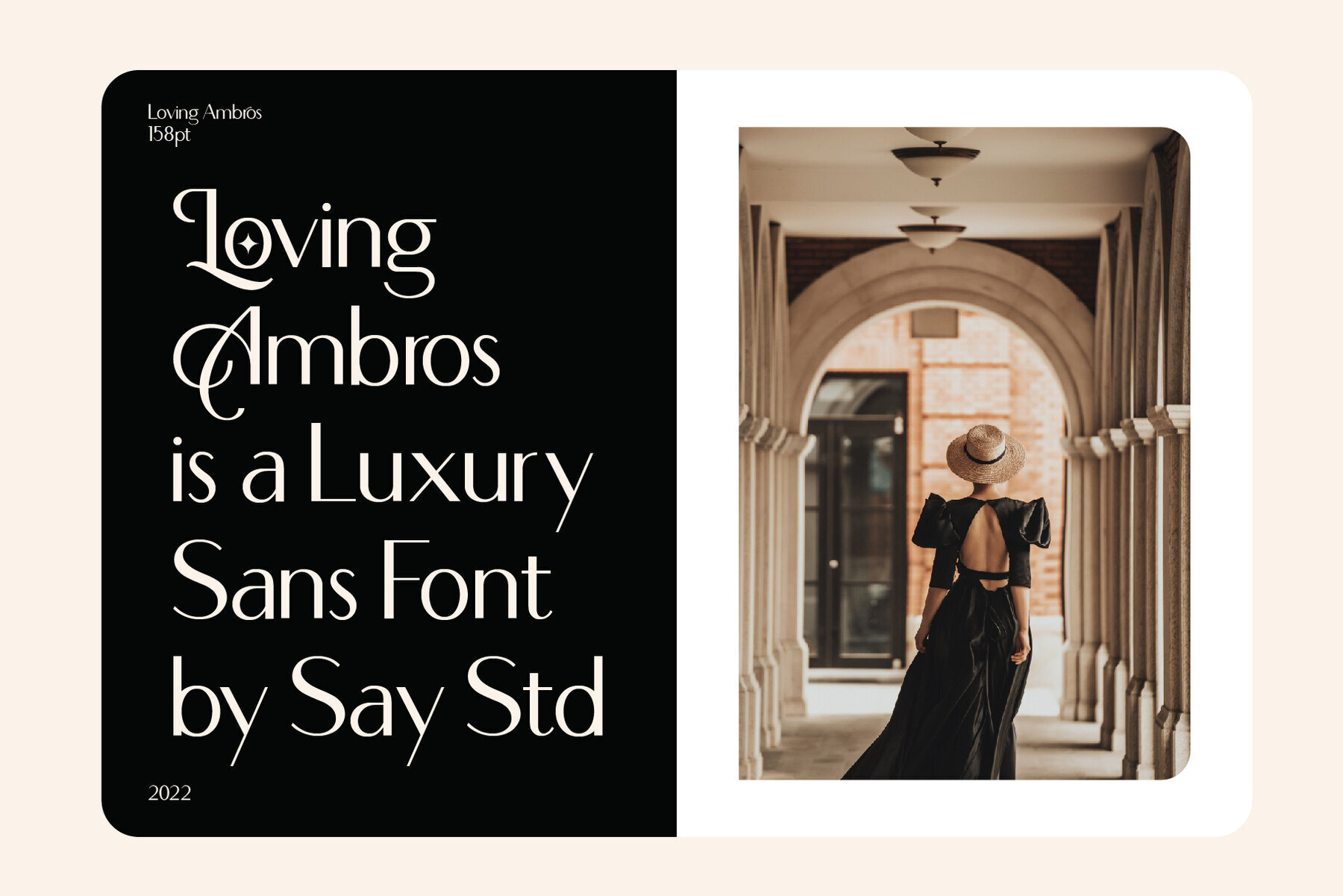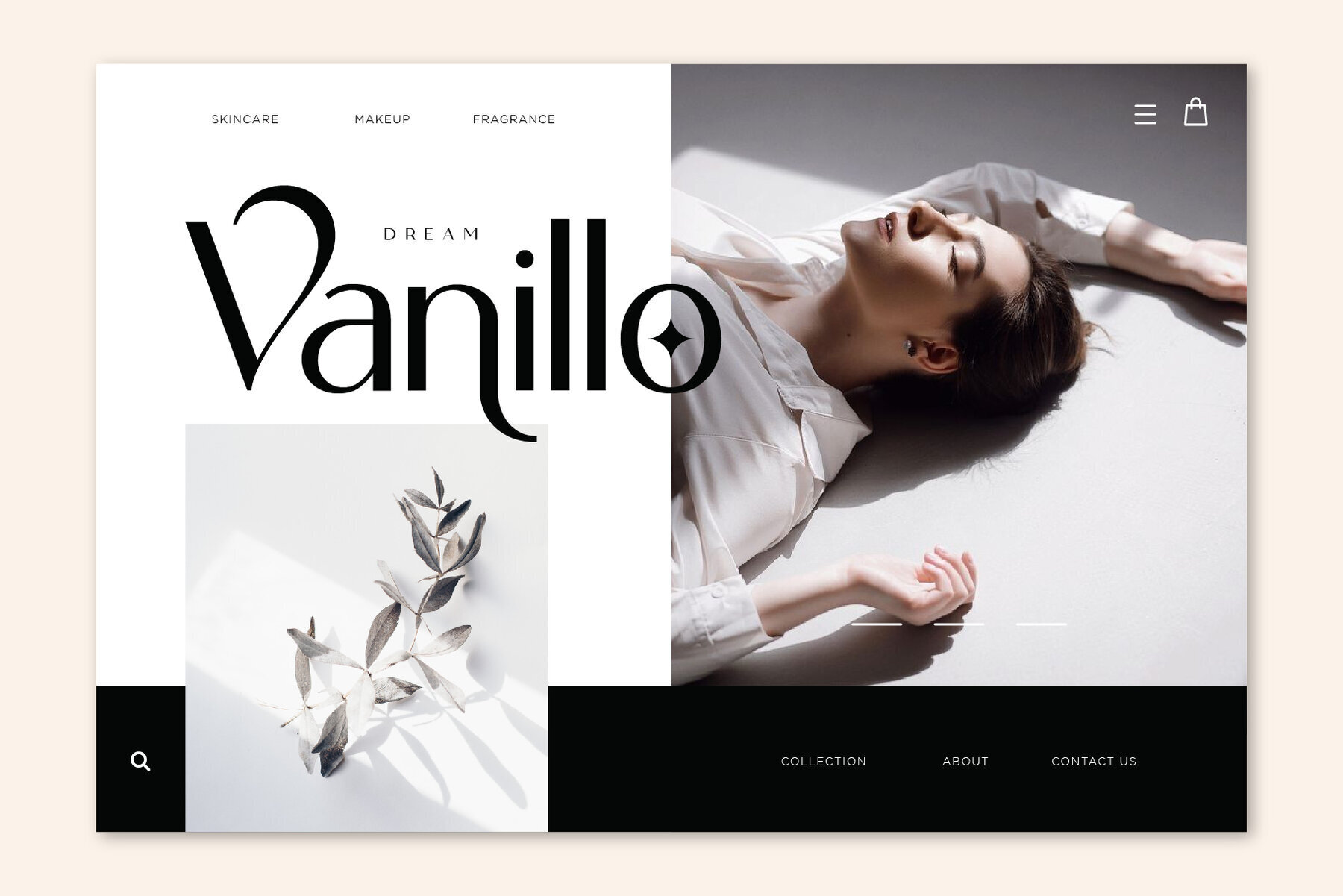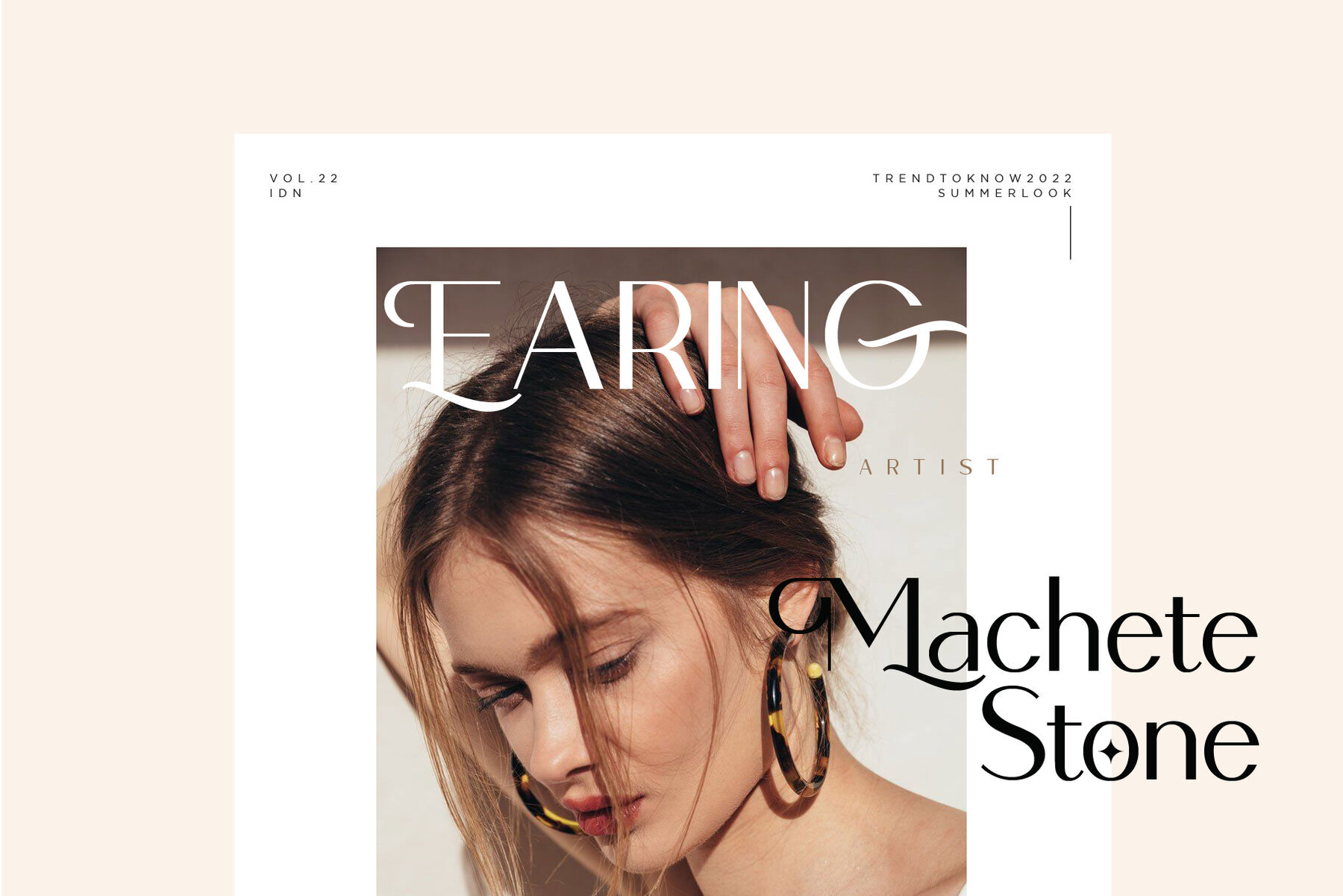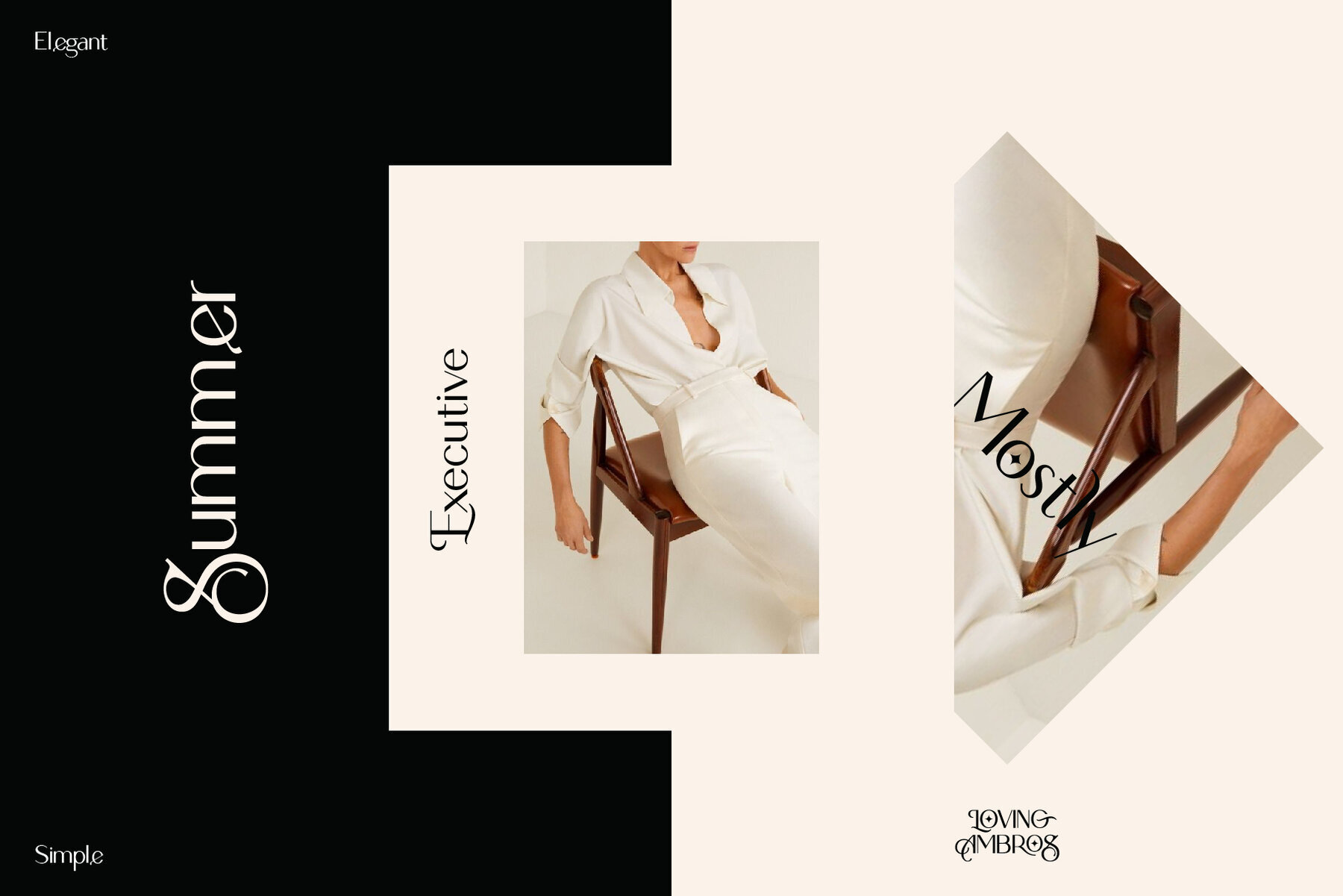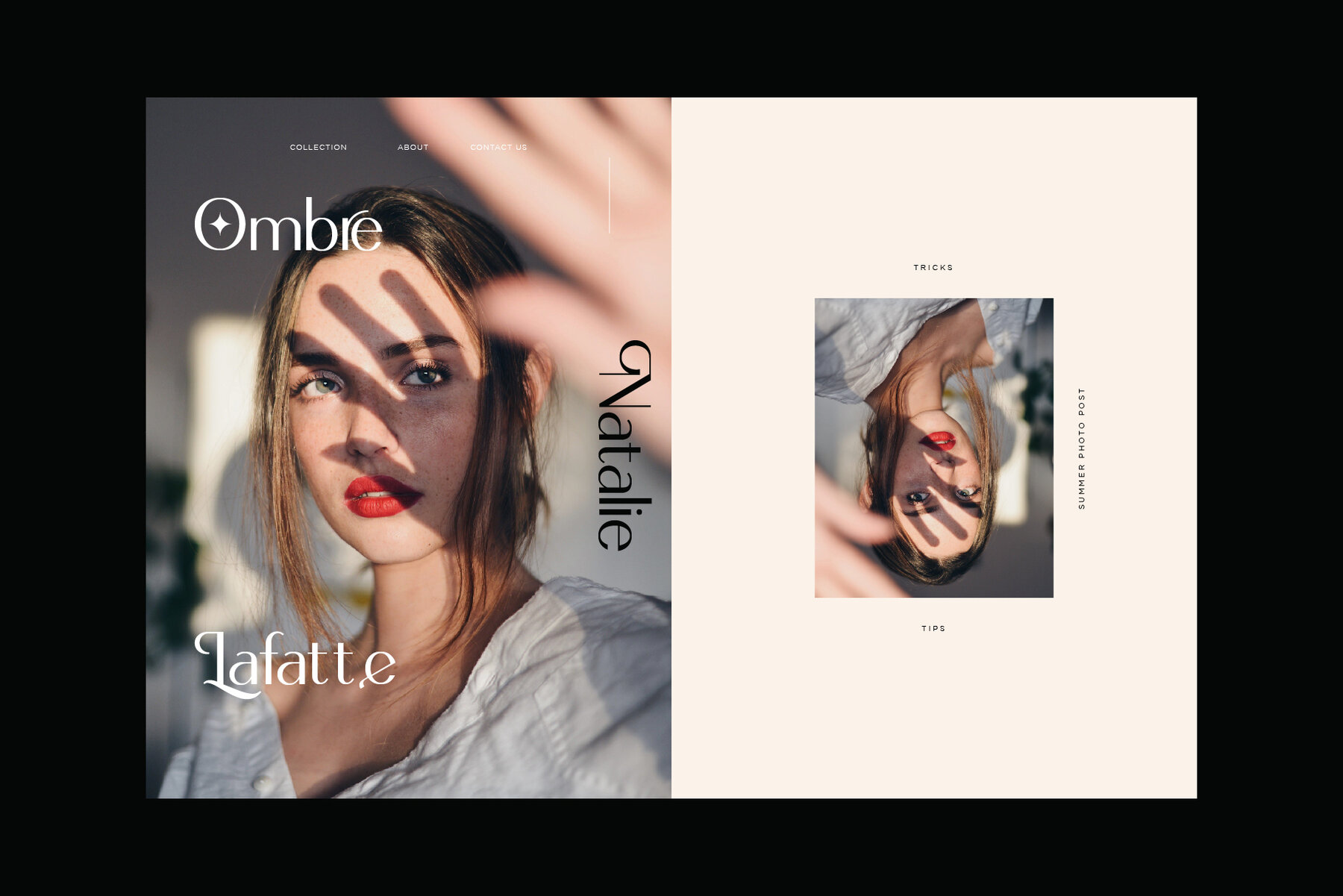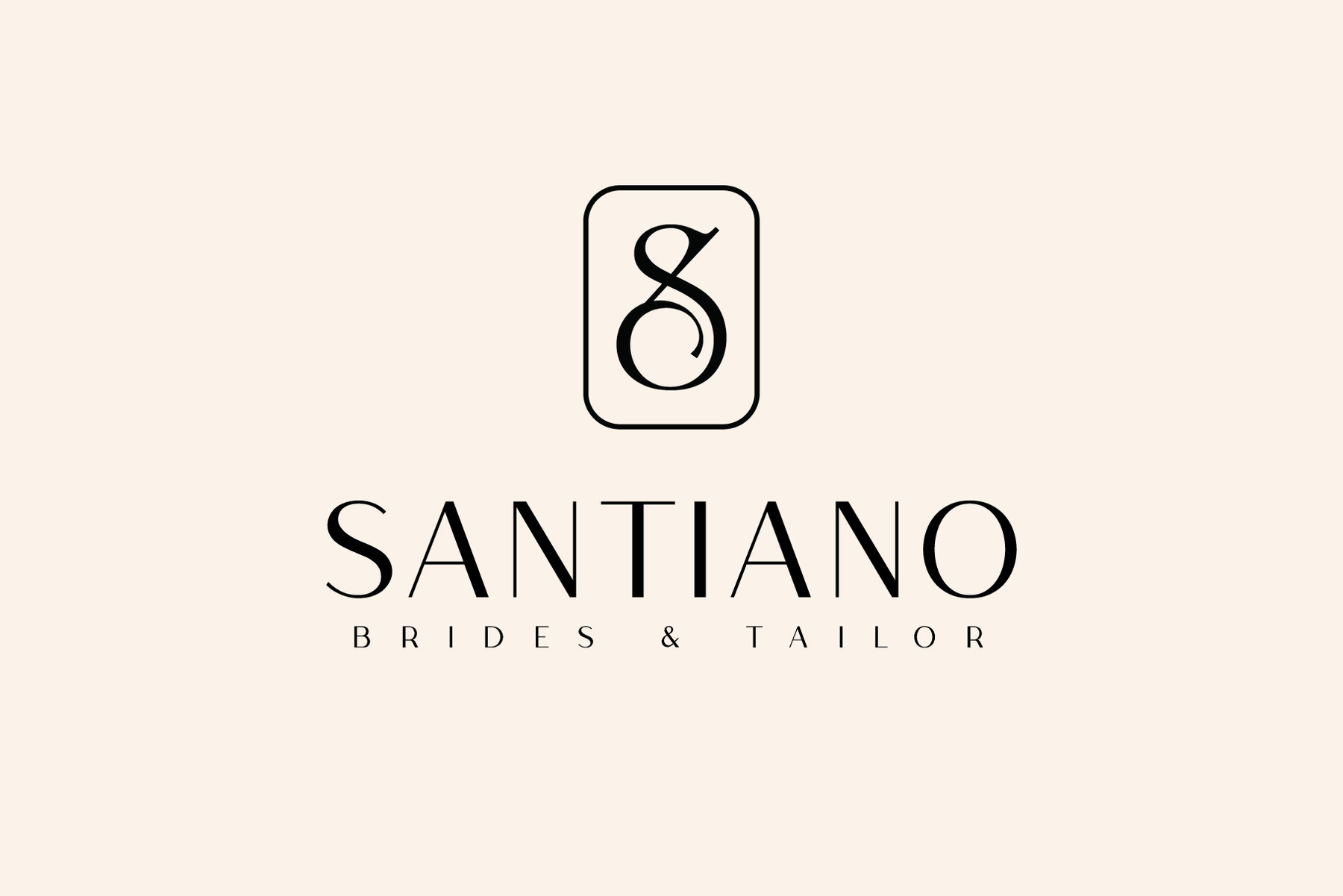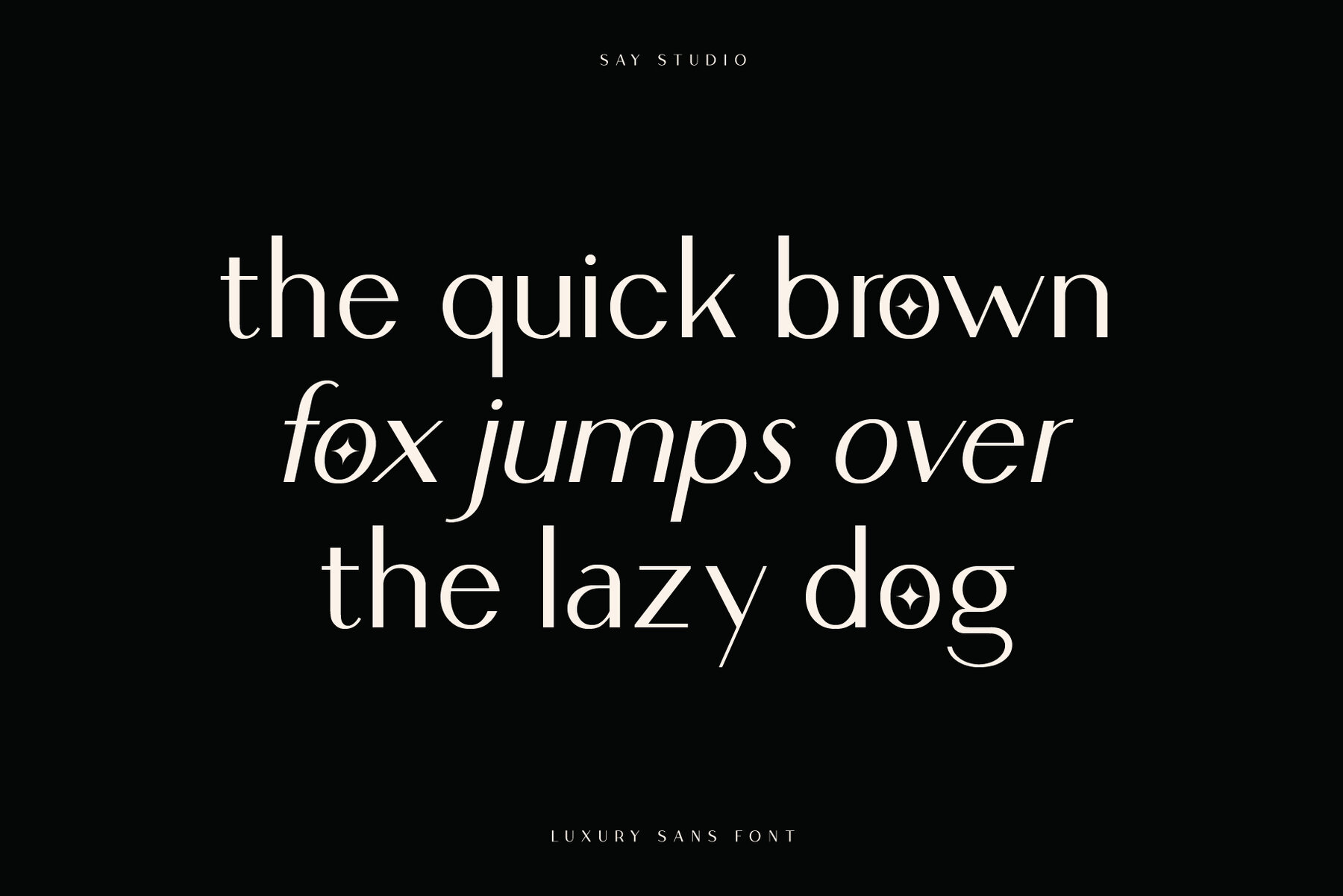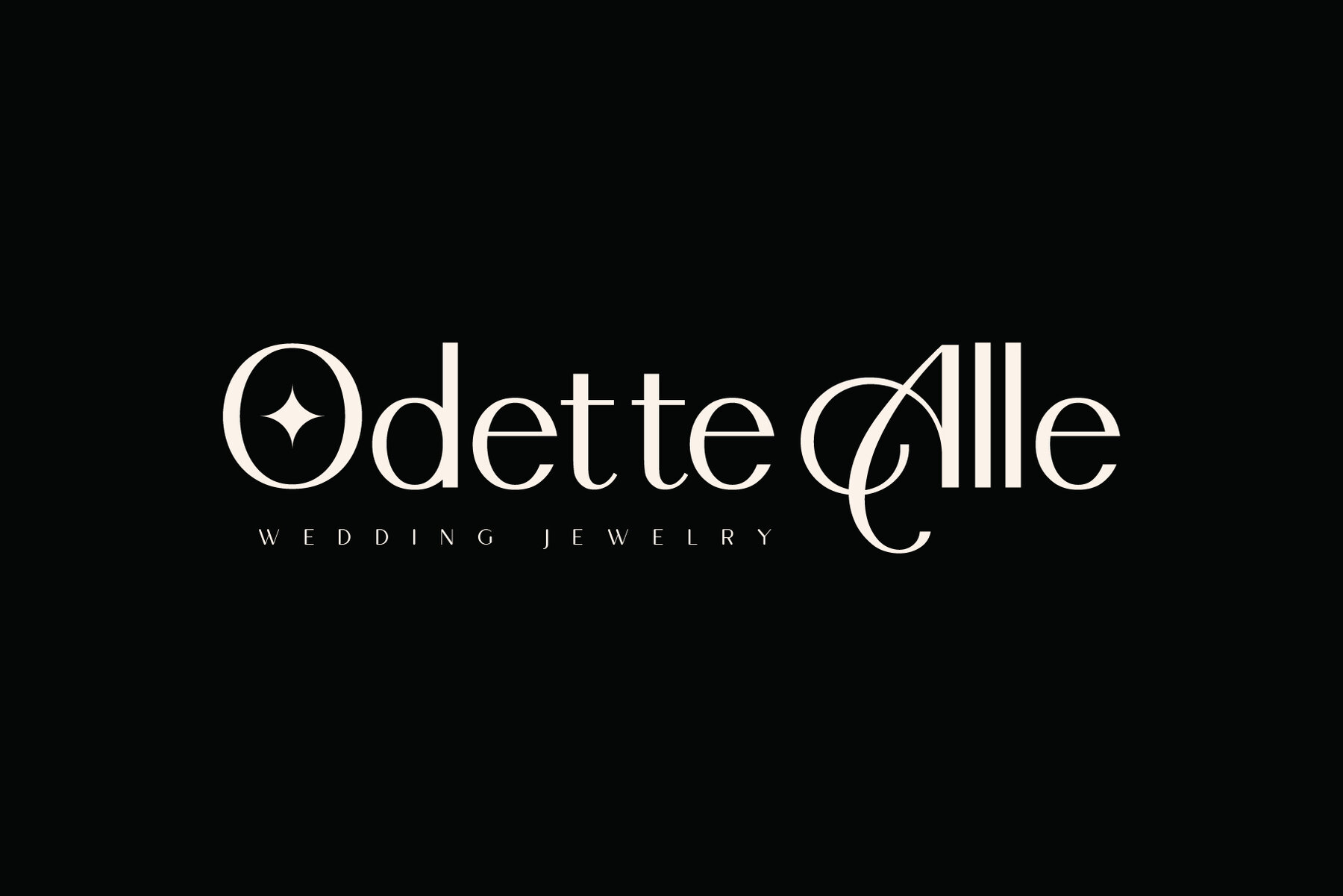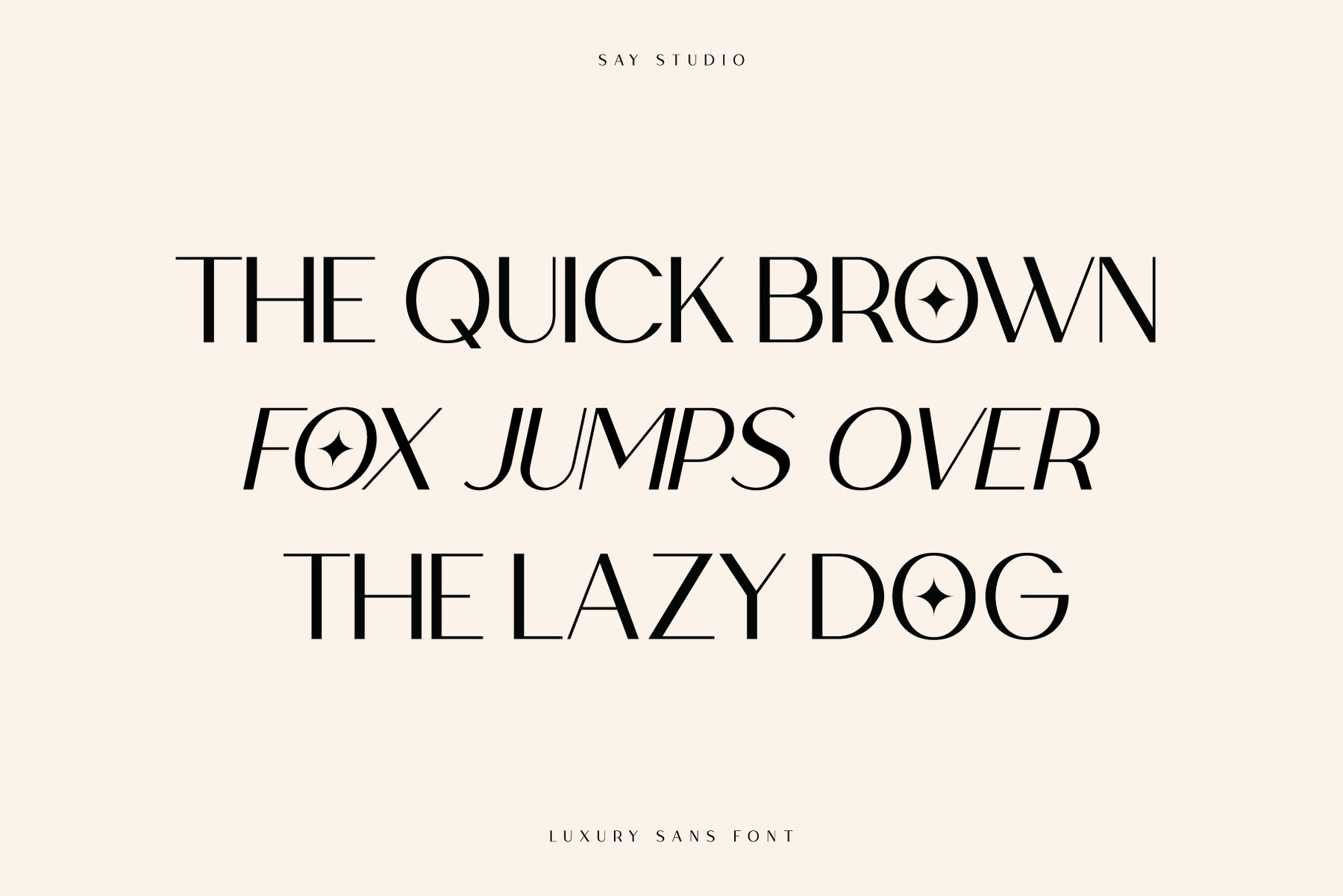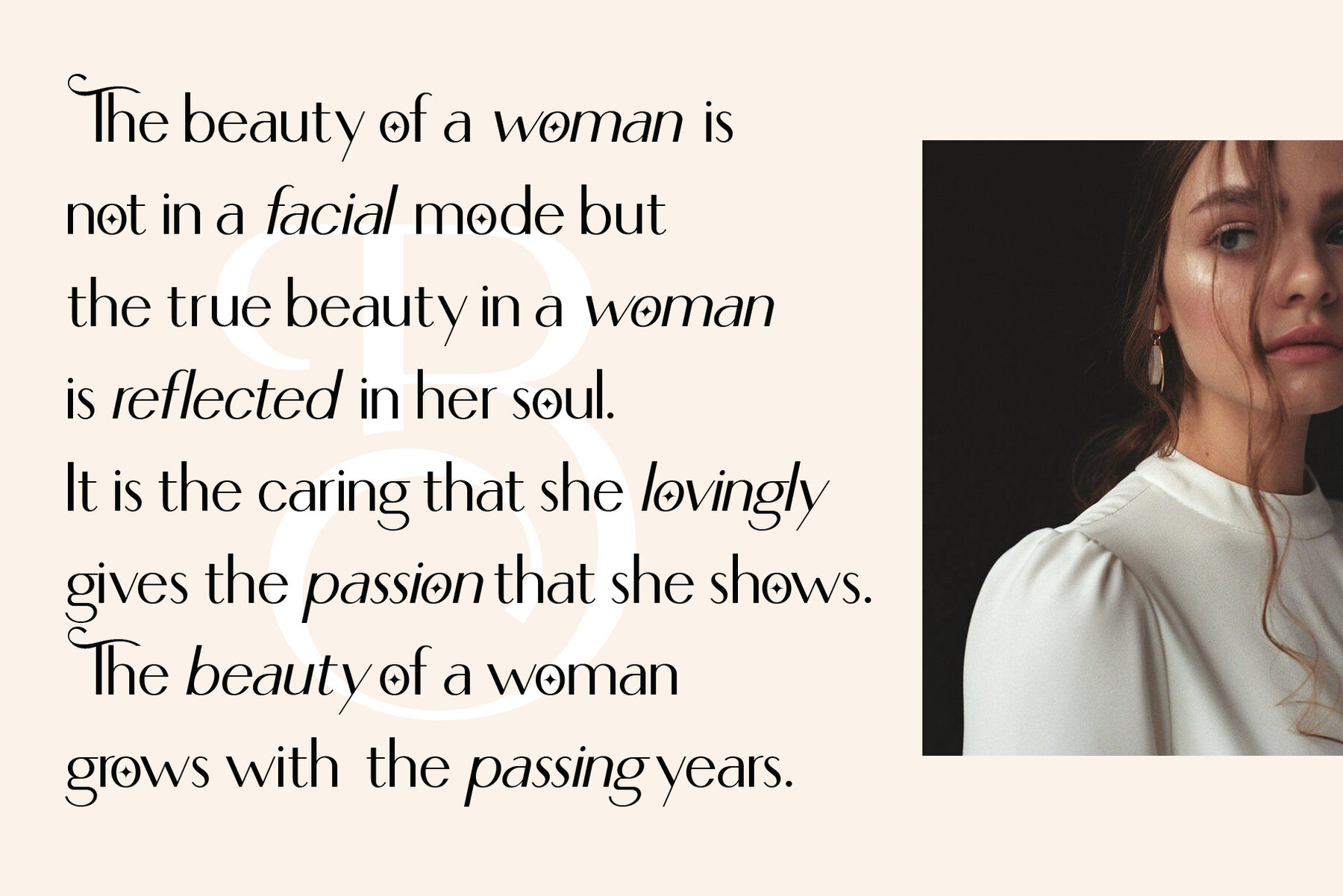
Loving Ambros Font
Loving Ambros is a refined typeface that artfully combines classic calligraphy with contemporary design elements, featuring 50 distinctive alternates and 69 unique ligatures. Available in both regular and italic versions, this font is crafted specifically for impactful headlines, titles, and other brief texts, making it a sophisticated choice for various creative projects. Its versatility allows it to shine across diverse applications, including advertising, vintage mood boards, branding, logotypes, packaging, editorial design, modern logos, websites, social media quotes, and wedding branding. The aesthetic blends elegance, luxury, romance, and fashion seamlessly, offering a robust solution for both modern and vintage designs. Fully compatible with Adobe Illustrator, Adobe Photoshop, Coreldraw, and even Microsoft Word, Loving Ambros is PUA encoded for complete accessibility and includes multilingual support. This ensures that designers can utilize the font effortlessly across various platforms, enhancing their creative projects with a touch of luxury.Loving Ambros: A Luxurious Typeface Experience